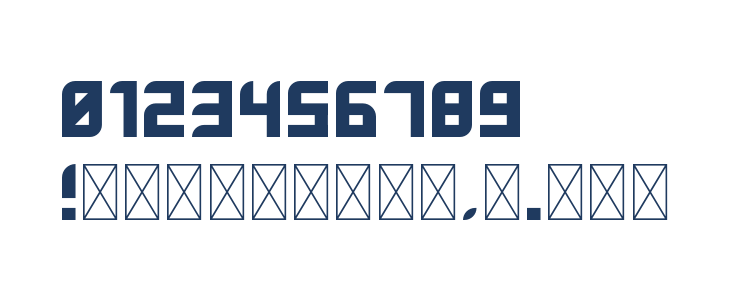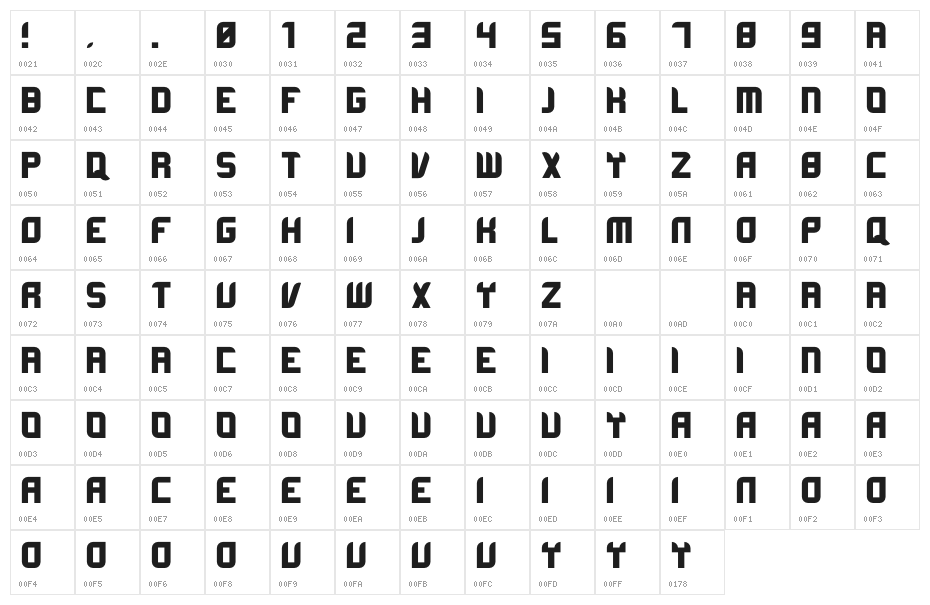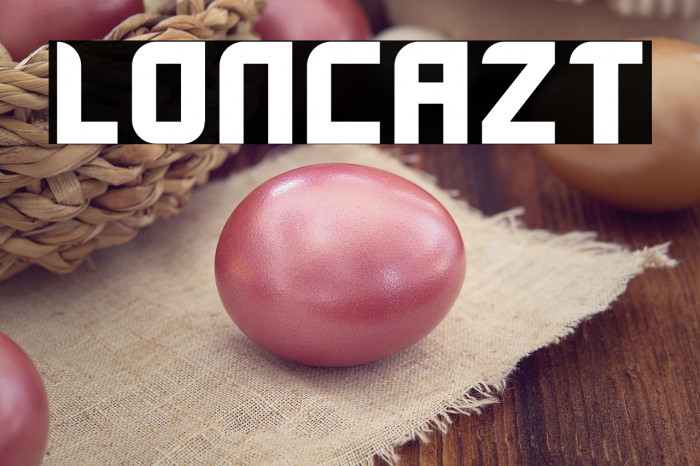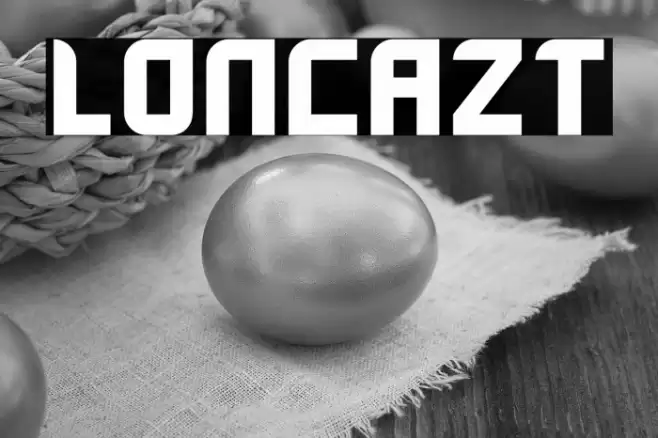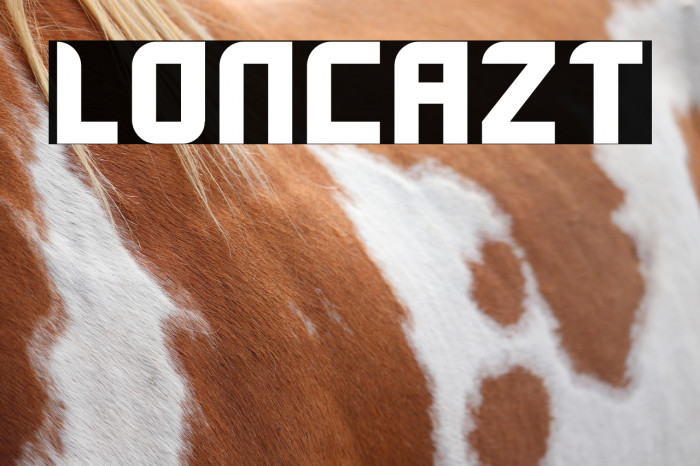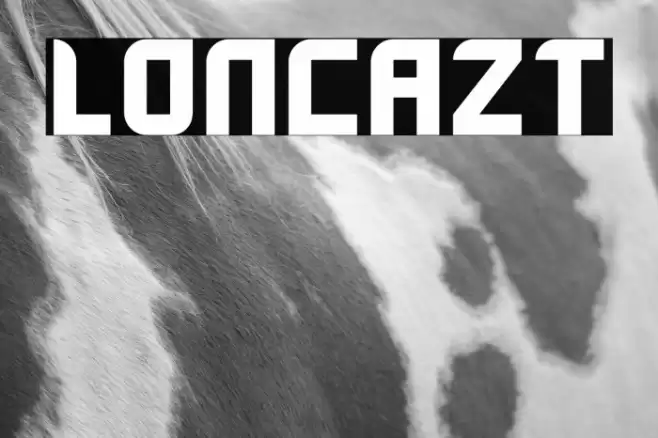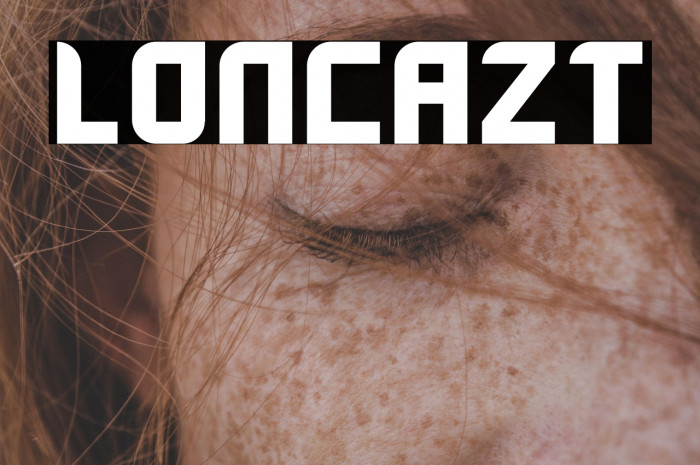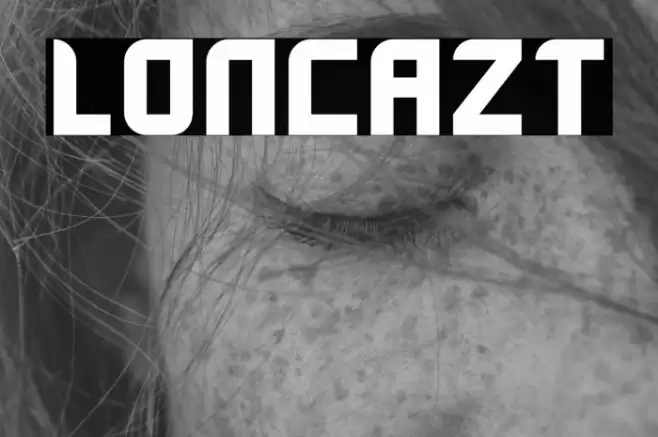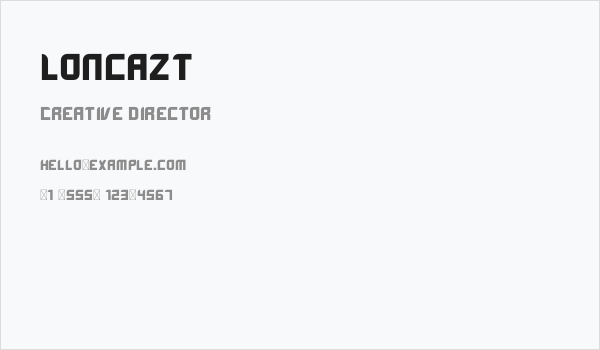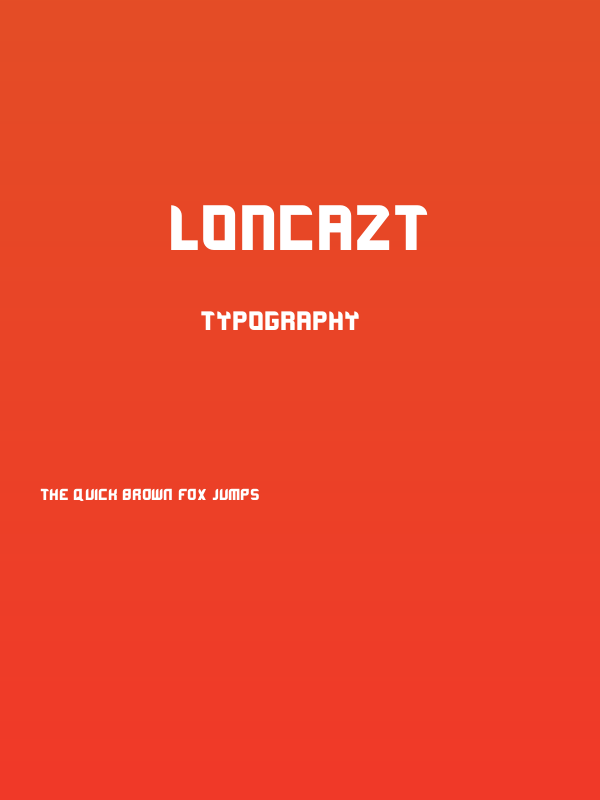
Loncazt Font
Loncazt Description
This font features a bold, geometric design with a modern and futuristic aesthetic. The characters are constructed with straight lines and sharp angles, giving them a strong and assertive presence. The uppercase letters are uniform in height, while the lowercase letters maintain a consistent style, enhancing readability. The numerals are equally bold, matching the overall design. The special characters are designed to complement the alphanumeric characters, maintaining the same geometric style. This font is ideal for projects that require a contemporary and impactful look.
| Proposed Projects | Ideal for branding, headlines, posters, and digital interfaces that require a strong visual impact. |